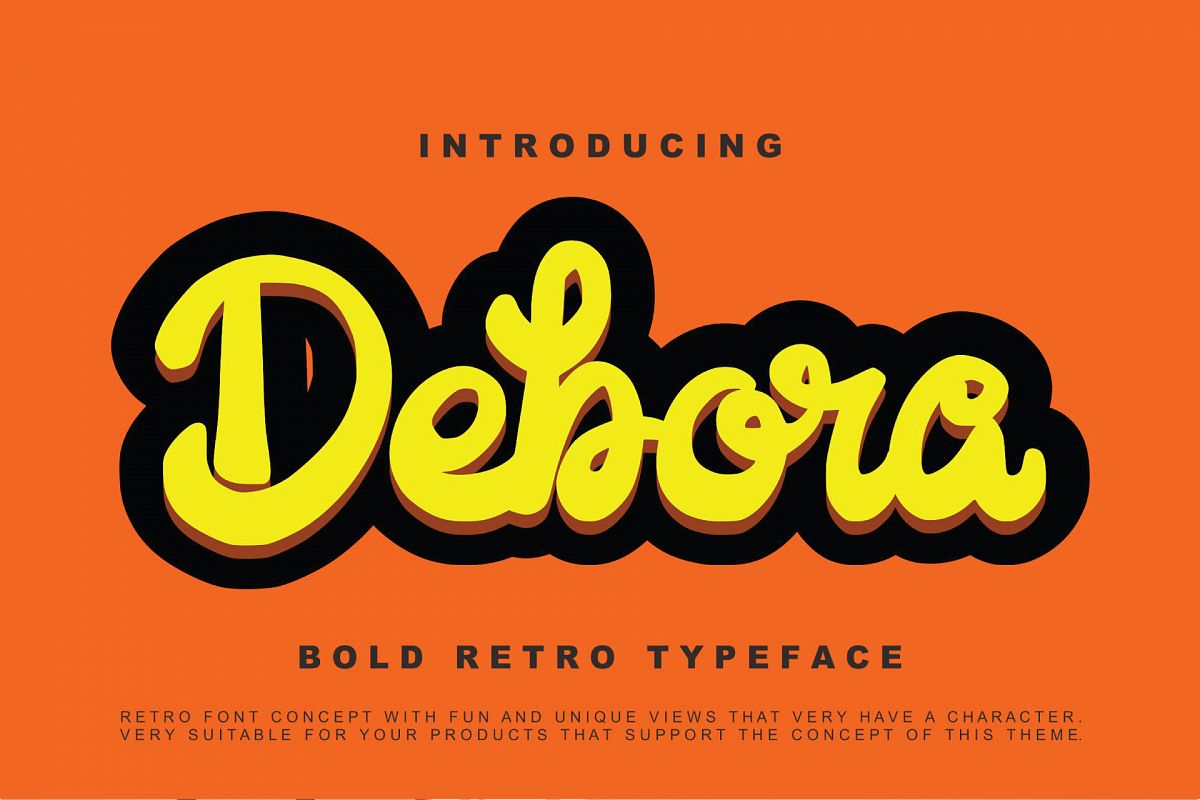
Debora - Retro Handwritten Script
Debora
Debora - Retro Handwritten Script with a calligraphy style, So beautiful on invitation like greeting cards, branding materials, business cards, quotes, posters, and more!
• Alternates and Ligatures